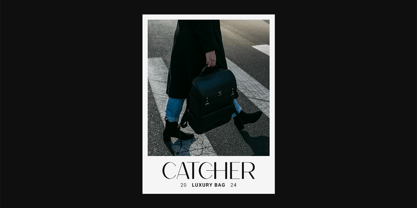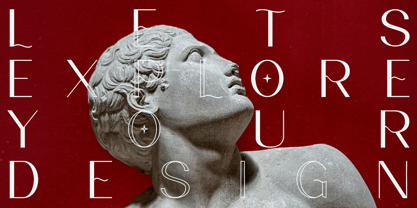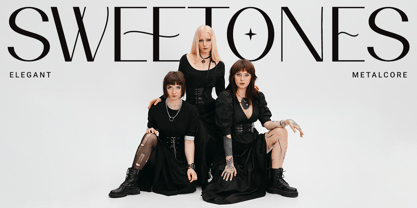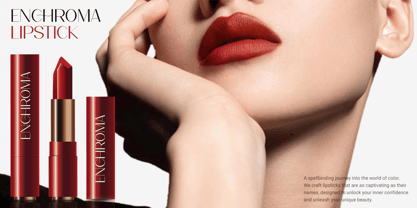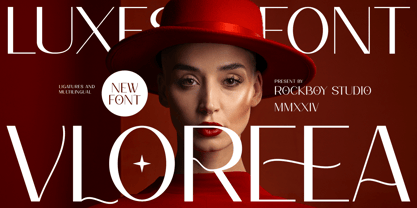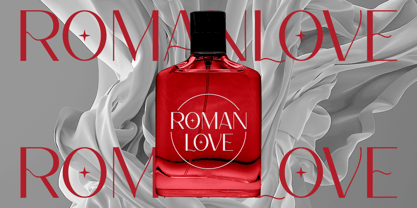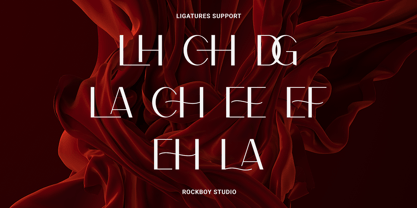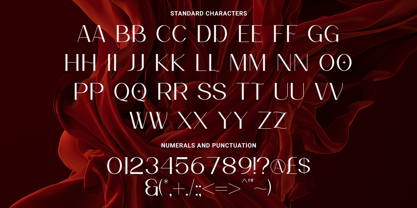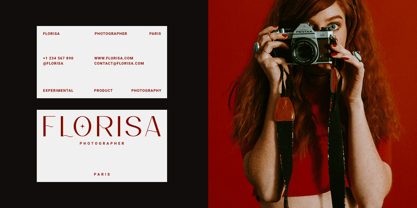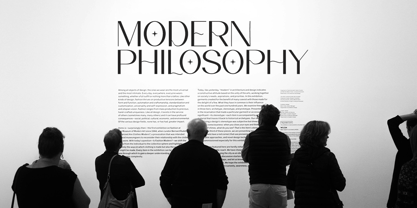
Vloreea
by Rockboys Studio
The Vloreea Font Family was designed by Hayinah and published by Rockboys Studio. Vloreea contains 1 styles. More about this family
Vloreea is a modern sans-serif font characterized by its clean lines and contemporary design. If you’re looking for details about this font or its usage, here's a brief overview:
Key Features:
• Design Style: Vloreea has a modern aesthetic with a focus on readability and simplicity. It typically features geometric shapes and balanced proportions.
• Use Cases: Ideal for branding, web design, and any projects requiring a sleek and professional appearance. It's often used in headings, logos, and body text.
• Variations: It may come in multiple weights and styles, such as regular, bold, and italic, providing versatility for different design needs.
Designers: Hayinah Hayinah
Foundry: Rockboys Studio